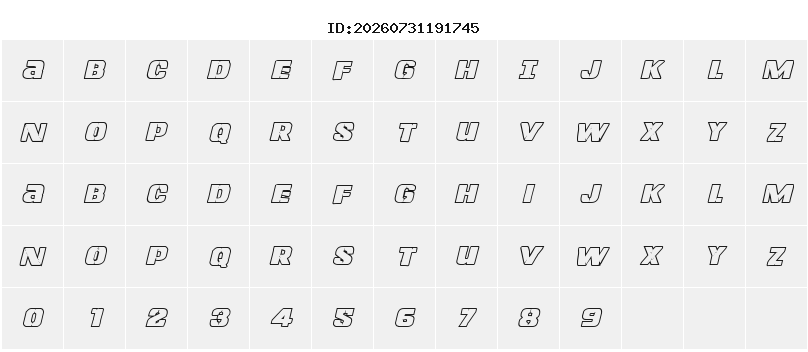
Left Hand Luke Bold Outline Italic Preview
• Font Name: Left Hand Luke Bold Outline Italic
• Font Style: Bold Outline Italic
• Full Font Name: Left Hand Luke Bold Outline Italic
About Left Hand Luke Bold Outline Italic.ttf
Left Hand Luke Bold Outline Italic.ttf is a modern, elegant sans-serif font designed for ultimate readability and visual harmony. Perfect for branding, headlines, web design, and print materials.